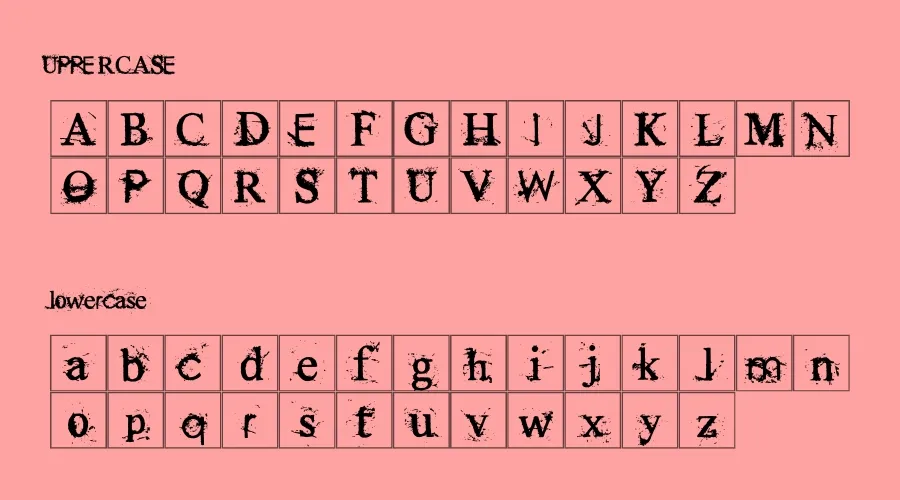
Rugged Type Font
About Rugged Type Font
The Rugged Type Font is a famous fancy texture style developed by a well-known graphic designer named M-Dfonts, you can get its free version from here. This font gained popularity in a very short time after it was published in the font world and also this texture is suitable for CSS and adobe photoshops.
The online generator tool of this attractive texture is excellent for converting all straightforward surfaces into contemporary characters.
You can efficiently utilize it with journey font and make outstanding designs. The copy-and-paste functions of this typeface are perfect for any assignment. It includes various types of styles and weights like regular, bold, and italic.
This font contains uppercase letters, numerals, symbols, digits, and many other unique types of alphabet sets. It has a unique future and is suitable for production and branding projects.